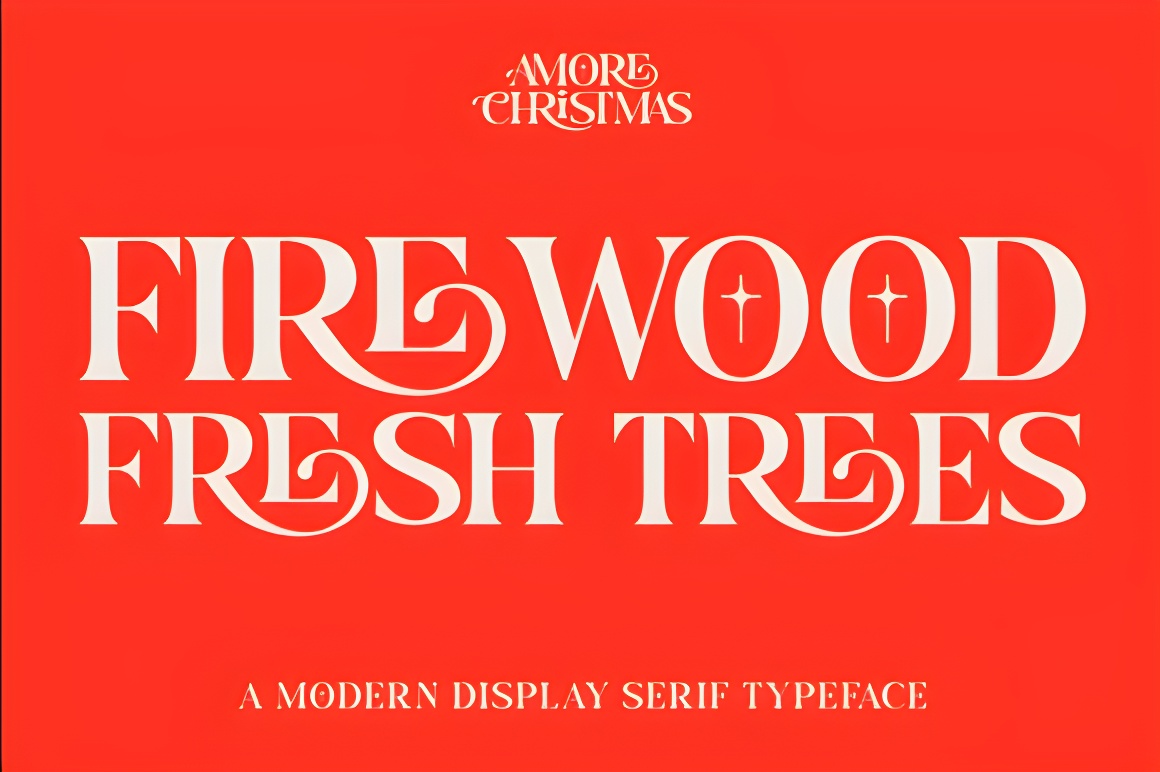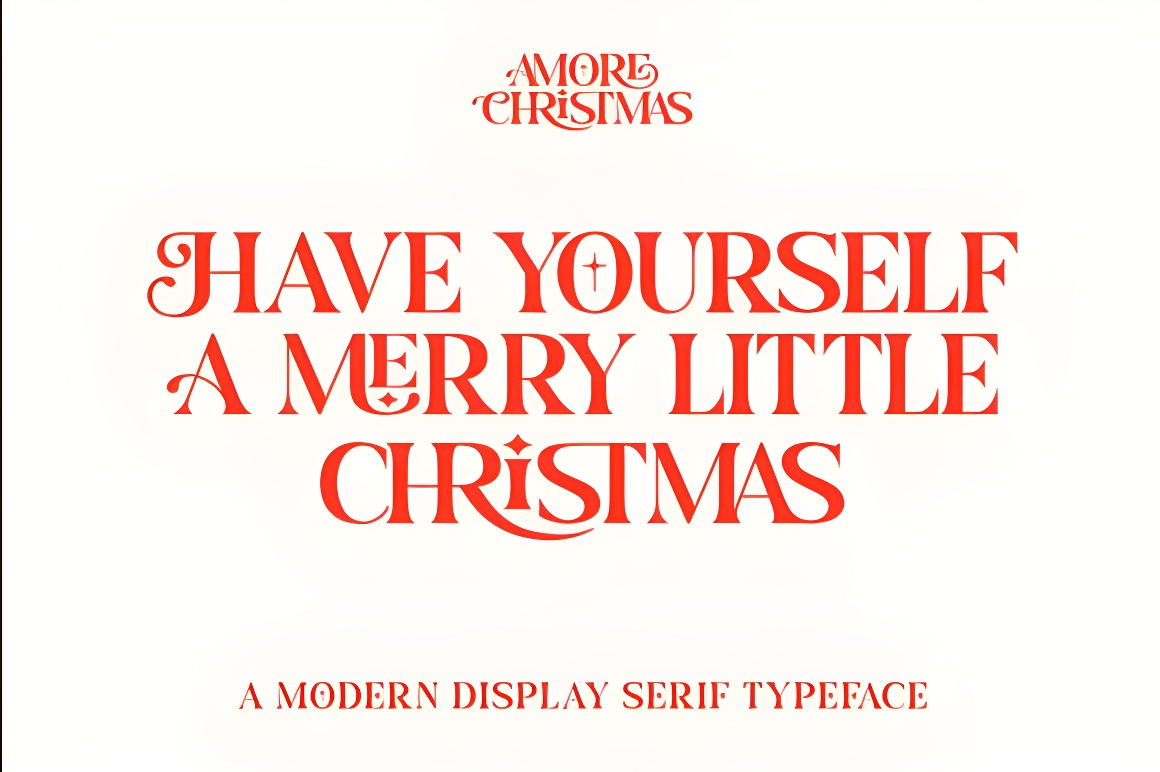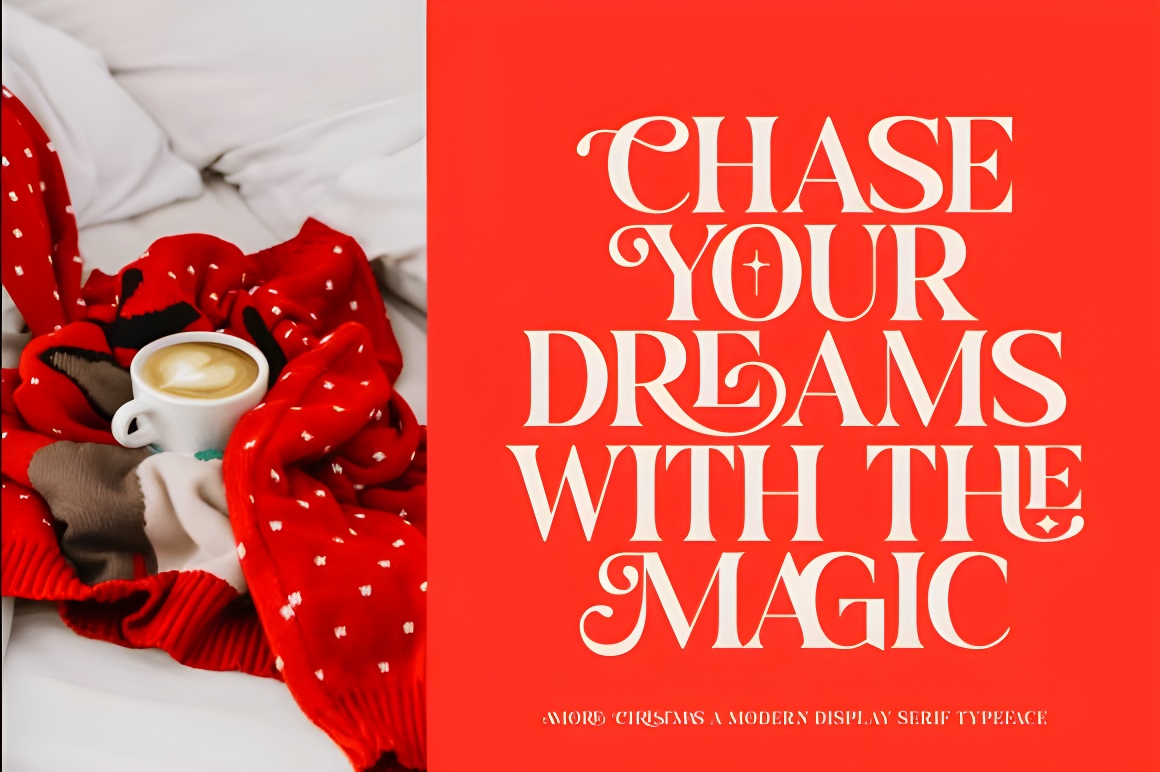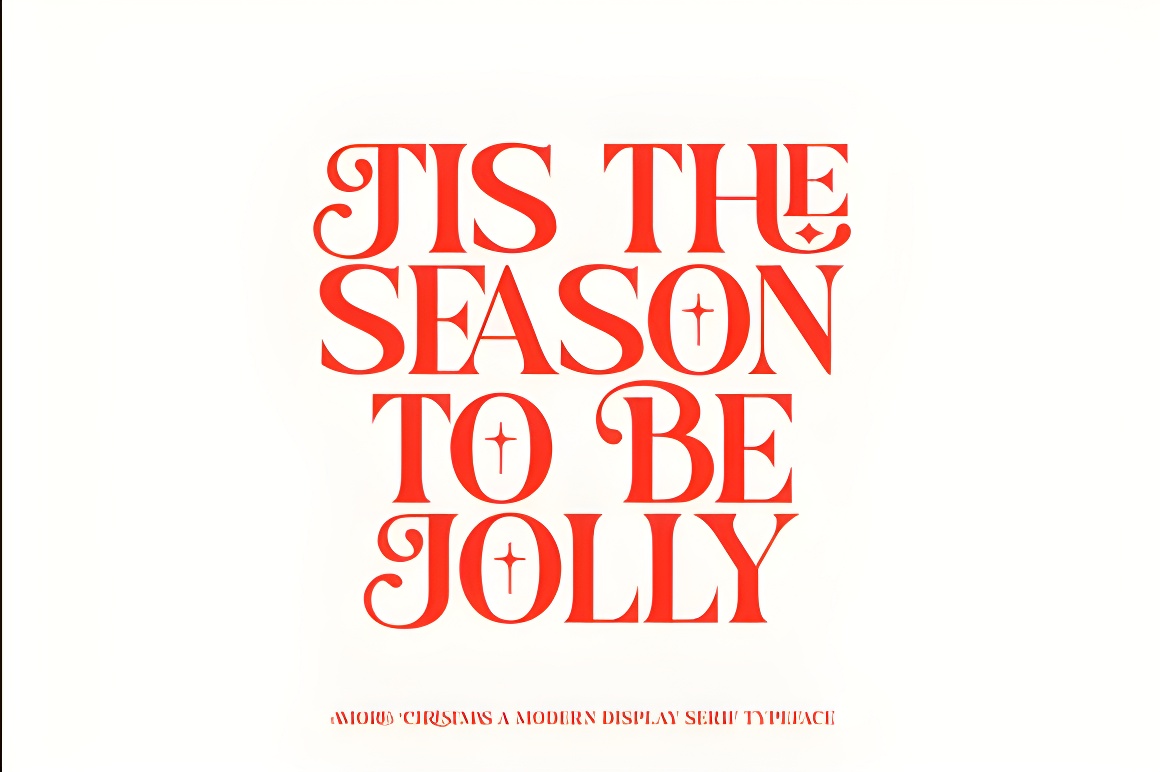
Amore Christmas Serif Font - Festive Holiday Display Typeface
Bold Christmas serif font with festive ligatures & holiday decorations. Perfect for headlines, seasonal promotions, menus & cards. Elevate Christmas designs with joyful warmth.